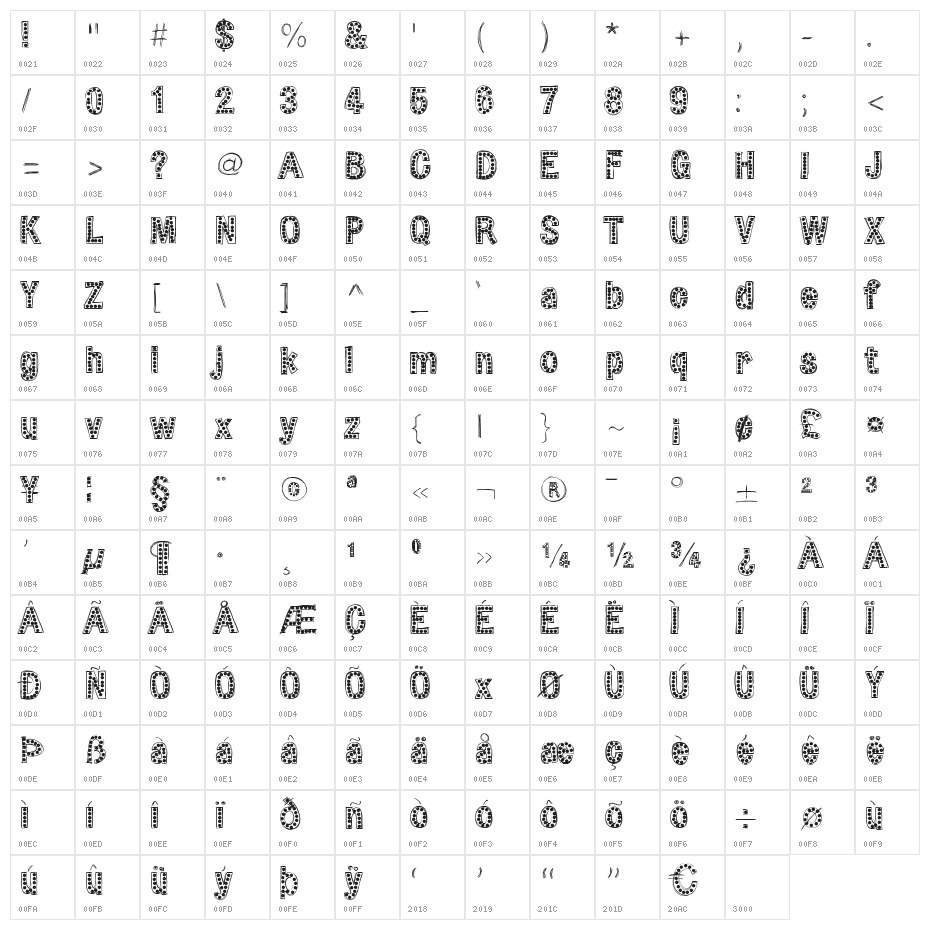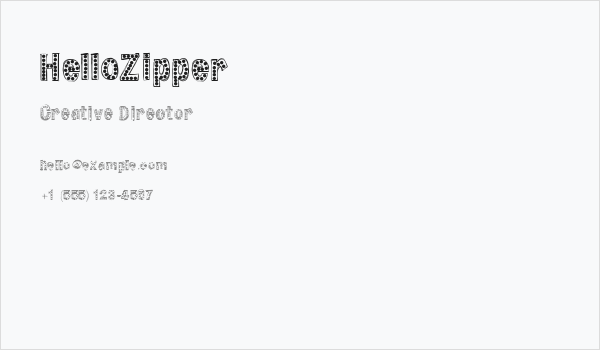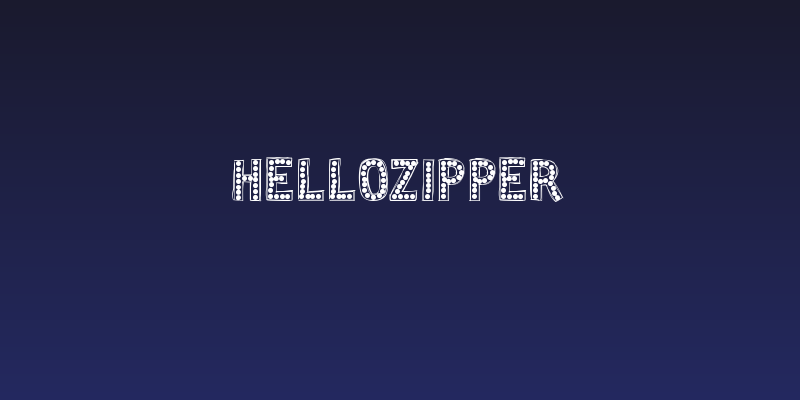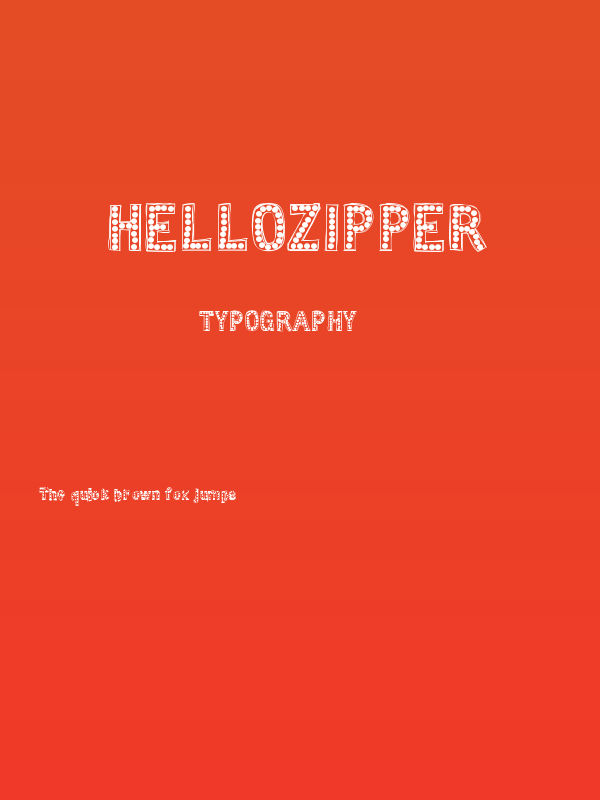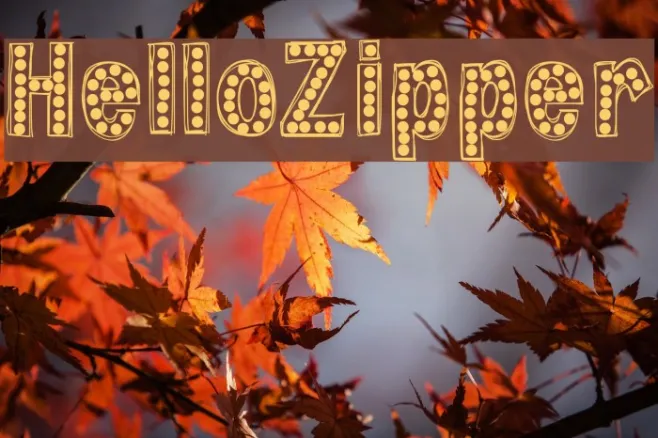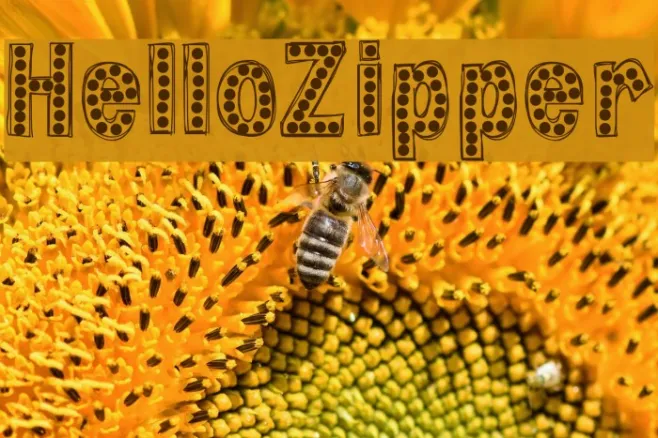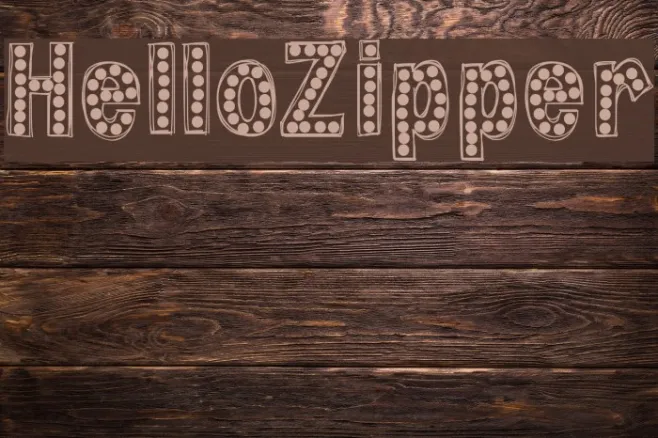
HelloZipper Font
HelloZipper Description
This font features a unique and playful design with a distinct polka dot pattern filling each character. The letters are bold and have a hand-drawn, whimsical appearance, making them stand out with a decorative flair. The uppercase and lowercase letters maintain a consistent style, with rounded edges and a slightly irregular outline that adds to the charm. Numbers and special characters follow the same design, ensuring a cohesive look across all glyphs. This font is perfect for projects that require a fun and eye-catching typeface.
| Proposed Projects | Ideal for children's books, party invitations, playful branding, and creative posters. |